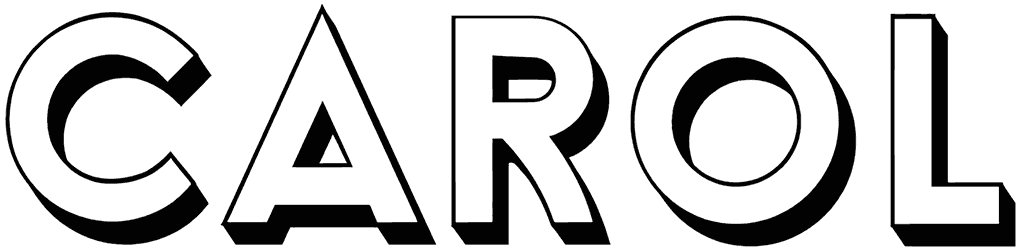
Carol Font
The marvelous legibility of a sans serif font, the same as the Carol, makes it look totally suitable for any kind of creative ideas that require a dramatic touch.
Aside from the lack of lowercase letters and numbers, this 3D font would be a reasonable option for your stickers, digital banners, street posters, video game brochures, or flyers. It is an undeniable fact that this outline font carries a sense of jauntiness, eeriness, tenderness, or vitality.